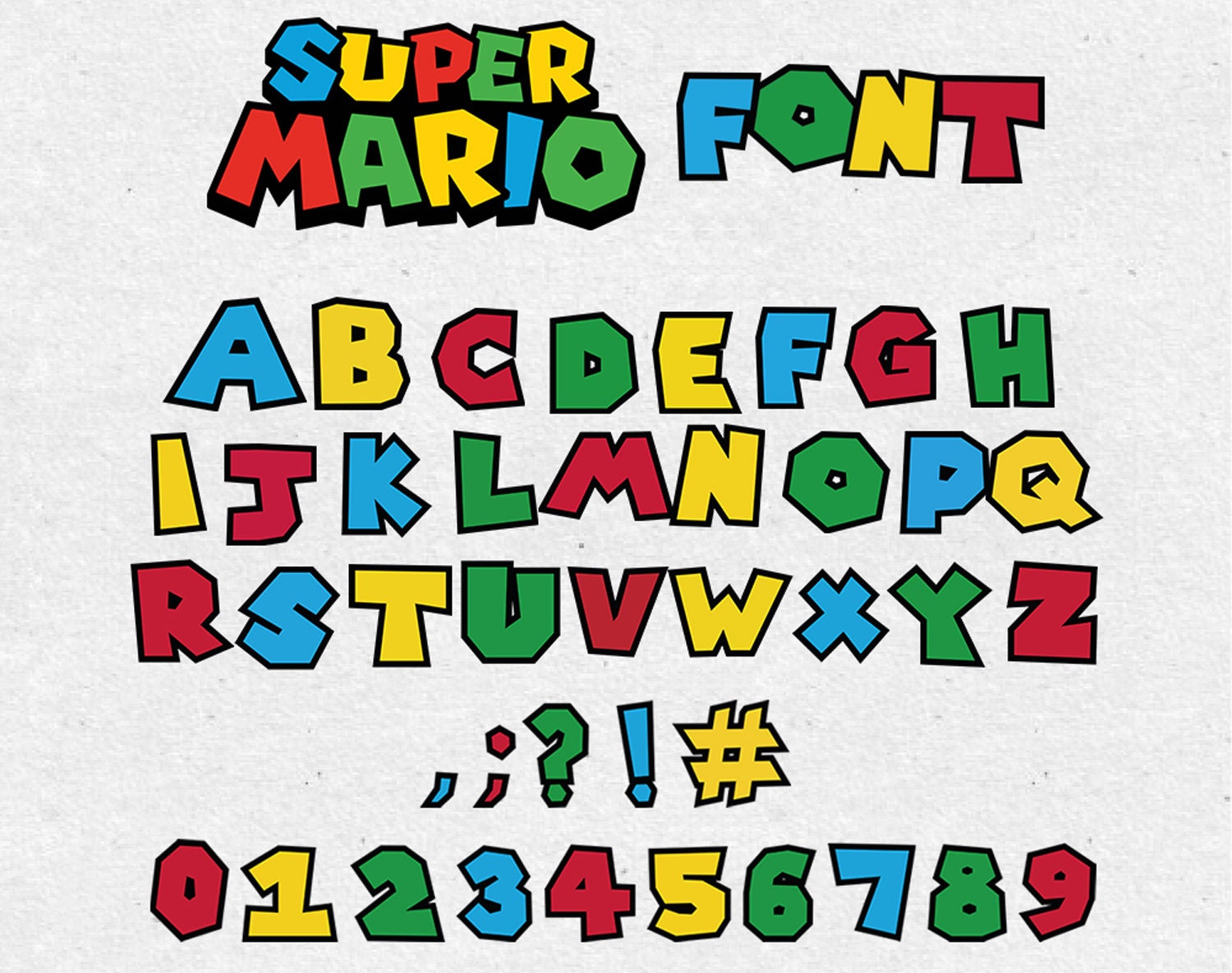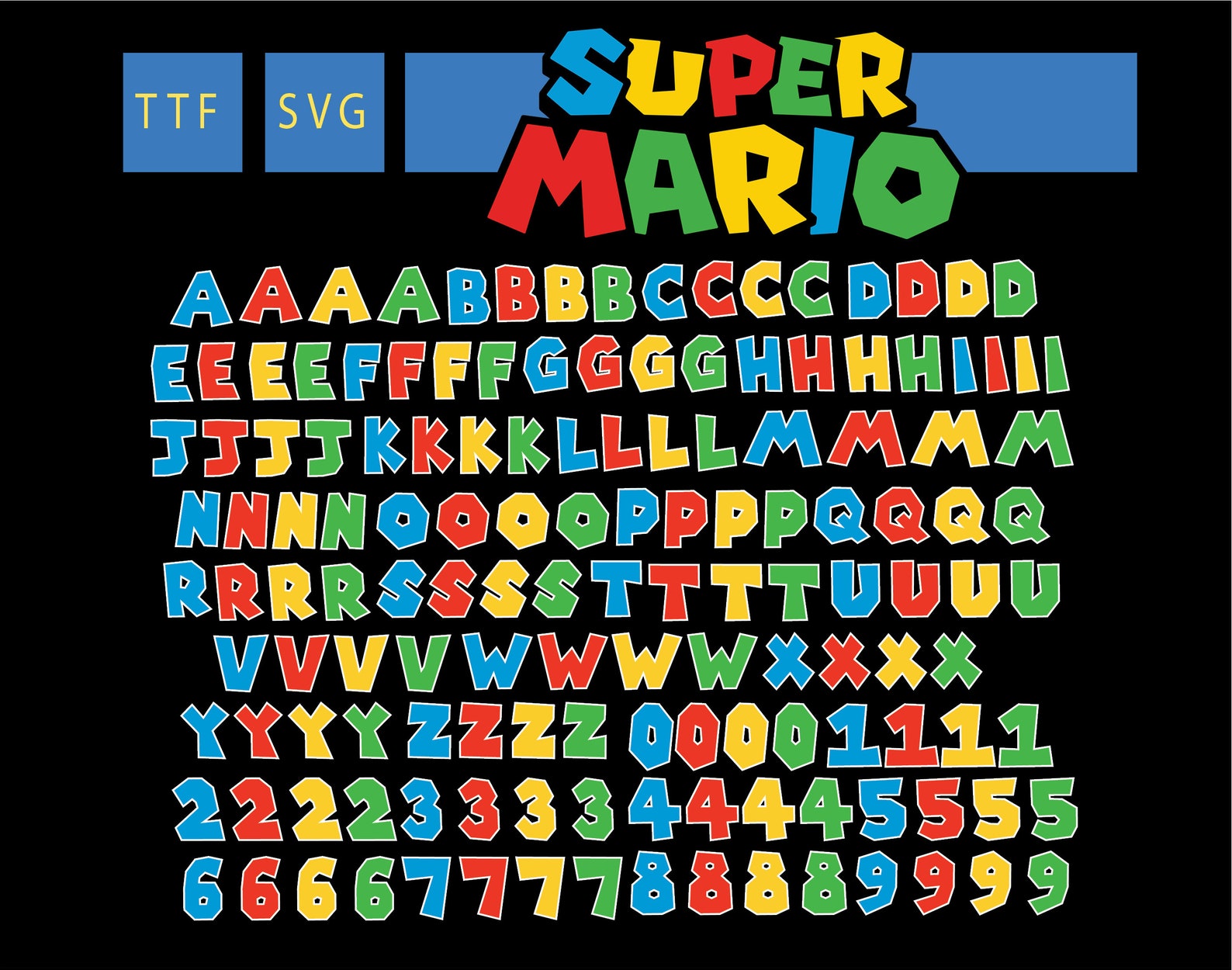
New Super Mario Bros Wii Font
New Super Mario Bros Wii Font - For the text “new”, the closest font we can. This font contains two sets of letters, a basic set. Supermariobroswii by clay cooper design is a font based on the new super mario bros. Web mario wii font download. Web the font is available in capital letters only. The site will redirect you to the new super mario bros wii font page. Web this is a list of typefaces used in games and related media within the super mario franchise. Web click the “download” button below. Web new super mario bros. A font set based on new super mario bros.
Web mario wii font download. Web the font is available in capital letters only. The site will redirect you to the new super mario bros wii font page. Web this is a list of typefaces used in games and related media within the super mario franchise. Supermariobroswii by clay cooper design is a font based on the new super mario bros. You can download the font for free here. A font set based on new super mario bros. Web new super mario bros. This font contains two sets of letters, a basic set. For the text “new”, the closest font we can.
Supermariobroswii by clay cooper design is a font based on the new super mario bros. Web mario wii font download. Web click the “download” button below. Web the font is available in capital letters only. For the text “new”, the closest font we can. Web new super mario bros. Web this is a list of typefaces used in games and related media within the super mario franchise. This font contains two sets of letters, a basic set. The site will redirect you to the new super mario bros wii font page. You can download the font for free here.
This font contains two sets of letters, a basic set. Web mario wii font download. Web this is a list of typefaces used in games and related media within the super mario franchise. Web click the “download” button below. Web new super mario bros.
The site will redirect you to the new super mario bros wii font page. This font contains two sets of letters, a basic set. A font set based on new super mario bros. Web mario wii font download. Web this is a list of typefaces used in games and related media within the super mario franchise.
Web new super mario bros. Web the font is available in capital letters only. Web mario wii font download. For the text “new”, the closest font we can. A font set based on new super mario bros.
You can download the font for free here. Web this is a list of typefaces used in games and related media within the super mario franchise. For the text “new”, the closest font we can. Web new super mario bros. A font set based on new super mario bros.
You can download the font for free here. Web new super mario bros. This font contains two sets of letters, a basic set. The site will redirect you to the new super mario bros wii font page. For the text “new”, the closest font we can.
Web this is a list of typefaces used in games and related media within the super mario franchise. A font set based on new super mario bros. You can download the font for free here. Web the font is available in capital letters only. For the text “new”, the closest font we can.
For the text “new”, the closest font we can. Web new super mario bros. Supermariobroswii by clay cooper design is a font based on the new super mario bros. Web the font is available in capital letters only. A font set based on new super mario bros.
Web mario wii font download. Web new super mario bros. Supermariobroswii by clay cooper design is a font based on the new super mario bros. Web the font is available in capital letters only. For the text “new”, the closest font we can.
A font set based on new super mario bros. Web mario wii font download. Web new super mario bros. Web the font is available in capital letters only. The site will redirect you to the new super mario bros wii font page.
A Font Set Based On New Super Mario Bros.
Web the font is available in capital letters only. This font contains two sets of letters, a basic set. Web this is a list of typefaces used in games and related media within the super mario franchise. Supermariobroswii by clay cooper design is a font based on the new super mario bros.
Web New Super Mario Bros.